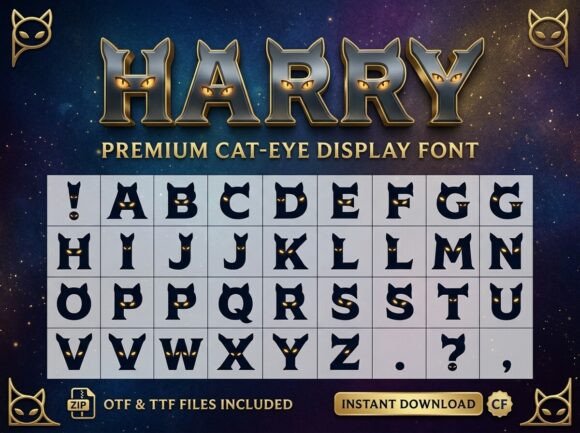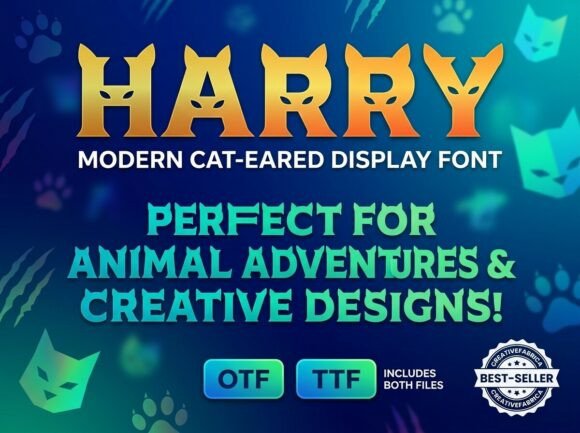
Unveiling Harry Font: The Mysterious Elegance of the Feline World
Are you ready to add a touch of mystique and sophistication to your designs? Look no further than Harry Font, a premium display font that embodies the enigmatic allure of the feline world. This exceptional typeface is characterized by sharp, cat-ear terminals and glowing, hyper-realistic cat eyes peering from within the letterforms, radiating an atmospheric and slightly supernatural energy.
The Inspiration Behind Harry Font
Harry Font is more than just a typeface – it’s an experience. Inspired by the mysterious and often magical world of cats, Harry Font brings a sense of wonder and intrigue to any design project. The font’s creator aimed to capture the essence of feline elegance, combining it with a hint of darkness and mysticism. The result is a font that is both captivating and unsettling, perfect for designs that require a touch of the extraordinary.
Key Features of Harry Font
- Sharp, Cat-Ear Terminals: Each letter in Harry Font features sharp, cat-ear terminals that add a touch of whimsy and playfulness to the overall design.
- Glowing, Hyper-Realistic Cat Eyes: The glowing cat eyes peering from within the letterforms are a standout feature of Harry Font. They add a sense of realism and depth to the font, making it truly unique.
- Atmospheric and Supernatural Energy: Harry Font exudes an otherworldly energy, perfect for designs that require a touch of magic and mystery.
Perfect for Dark and Edgy Designs
Harry Font is an exceptional selection for a variety of design projects, including:
- Halloween Branding: Add a touch of spookiness to your Halloween branding with Harry Font. The font’s dark and mysterious vibe is perfect for creating eerie and captivating designs.
- Dark Fantasy Book Covers: Harry Font is ideal for dark fantasy book covers, adding a sense of mystery and intrigue to your design.
- Pet-Themed Mystery Games: If you’re creating a pet-themed mystery game, Harry Font is the perfect choice. The font’s feline inspiration and mysterious energy will draw players in and keep them engaged.
- Edgy Streetwear Logos: Harry Font is also perfect for edgy streetwear logos, adding a touch of sophistication and mystery to your brand.
Tips for Using Harry Font
To get the most out of Harry Font, here are a few tips:
- Use it Sparingly: Due to its bold and eye-catching nature, it’s best to use Harry Font sparingly. Use it as a headline font or for emphasis, and pair it with a simpler font for body text.
- Experiment with Colors: Harry Font looks stunning in a range of colors, from deep blues and purples to bold reds and oranges. Experiment with different colors to find the perfect combination for your design.
- Add Texture and Depth: To add texture and depth to your design, try adding a subtle texture or gradient to Harry Font. This will help it stand out and give it a more premium feel.
Harry Font is a truly unique and exceptional typeface that is sure to add a touch of mystery and sophistication to any design project. With its sharp, cat-ear terminals and glowing, hyper-realistic cat eyes, this font radiates an atmospheric and slightly supernatural energy. Whether you’re creating Halloween branding, dark fantasy book covers, pet-themed mystery games, or edgy streetwear logos, Harry Font is the perfect choice.